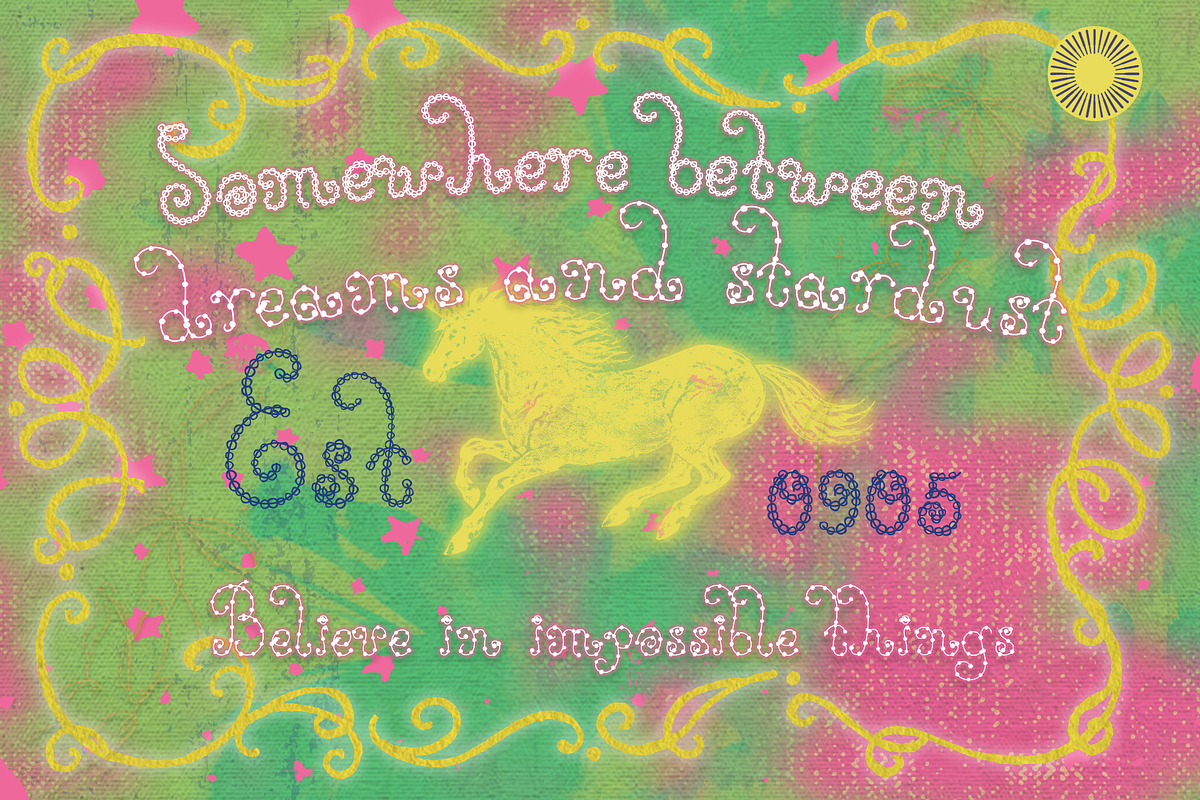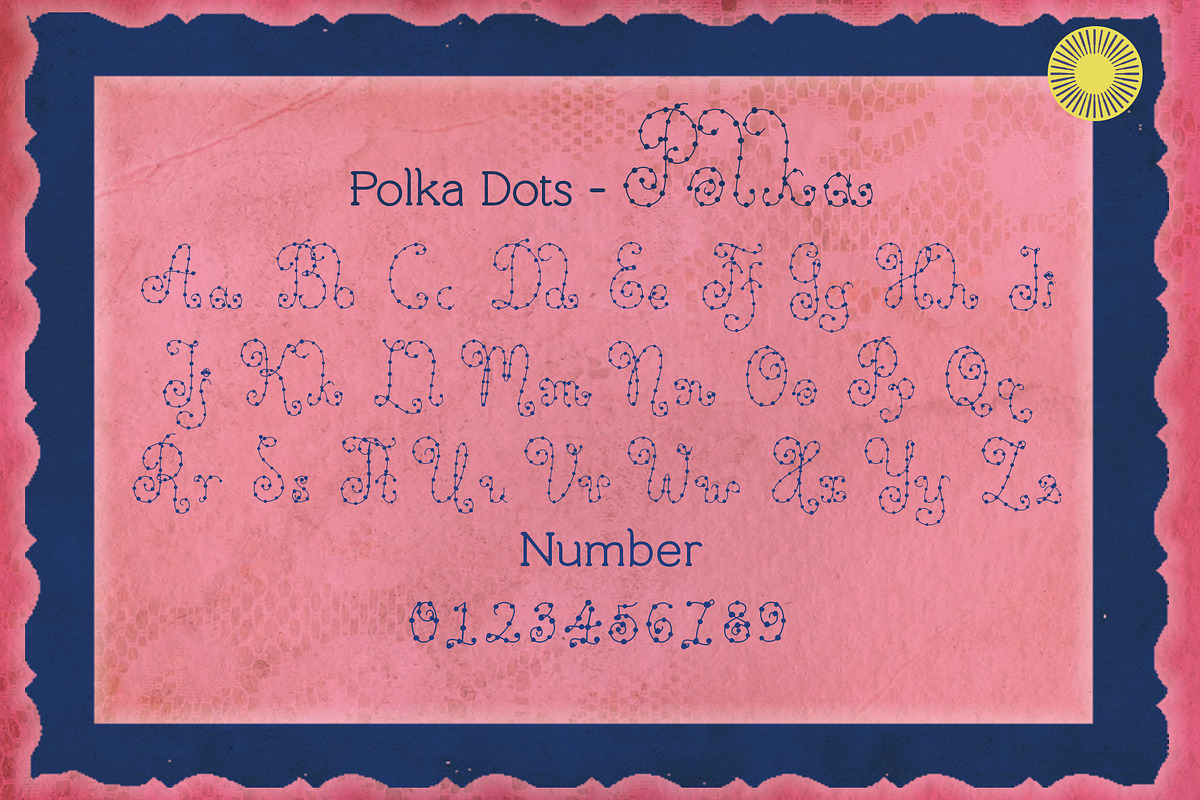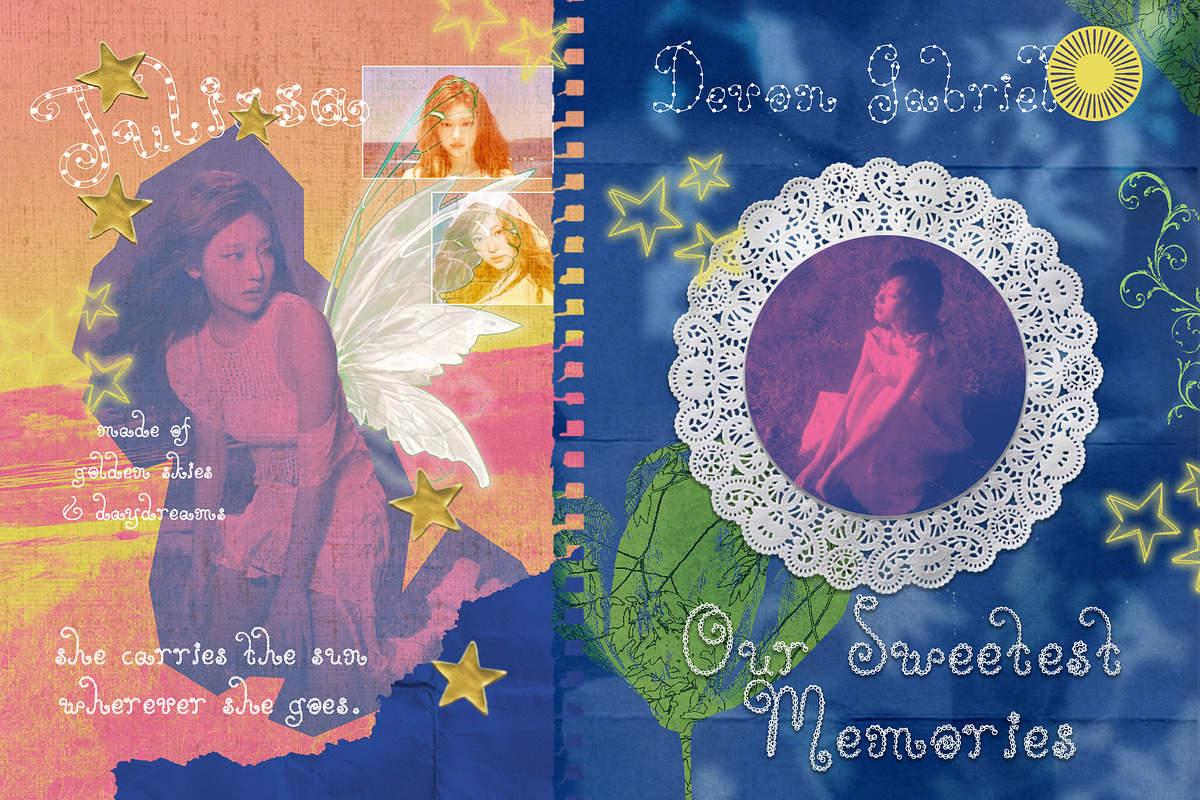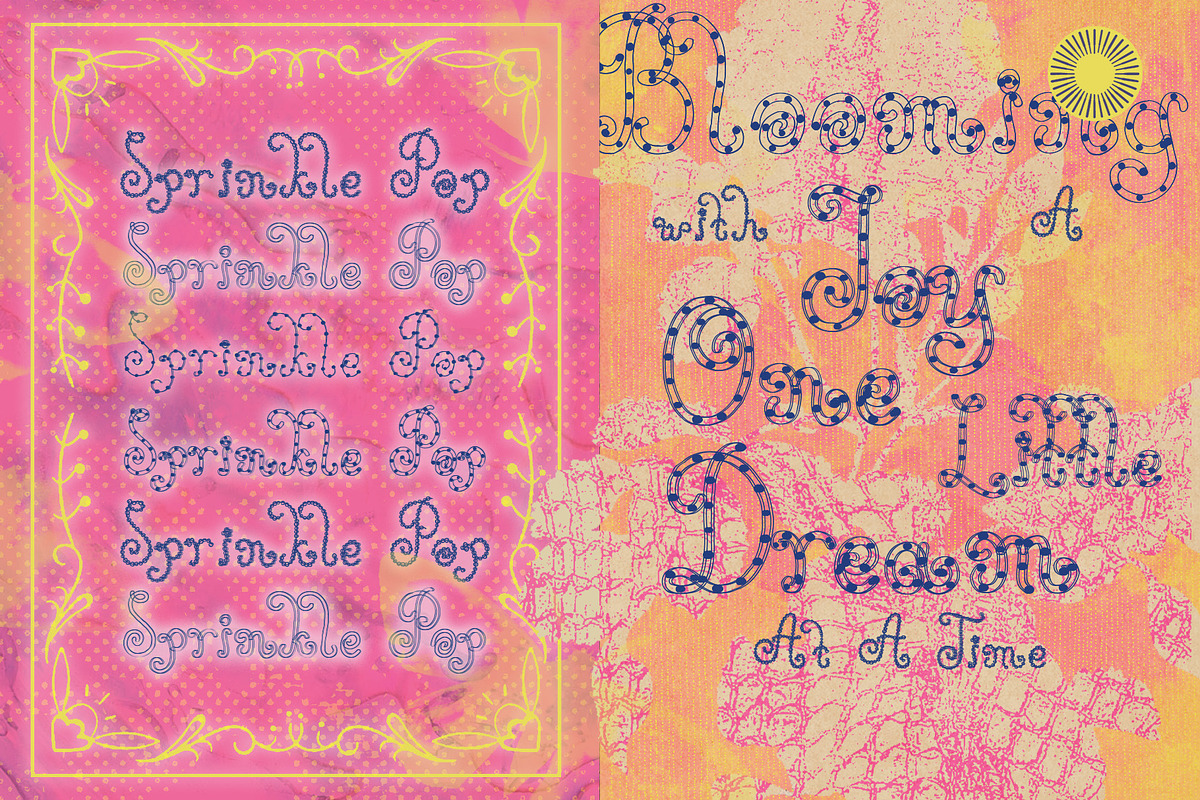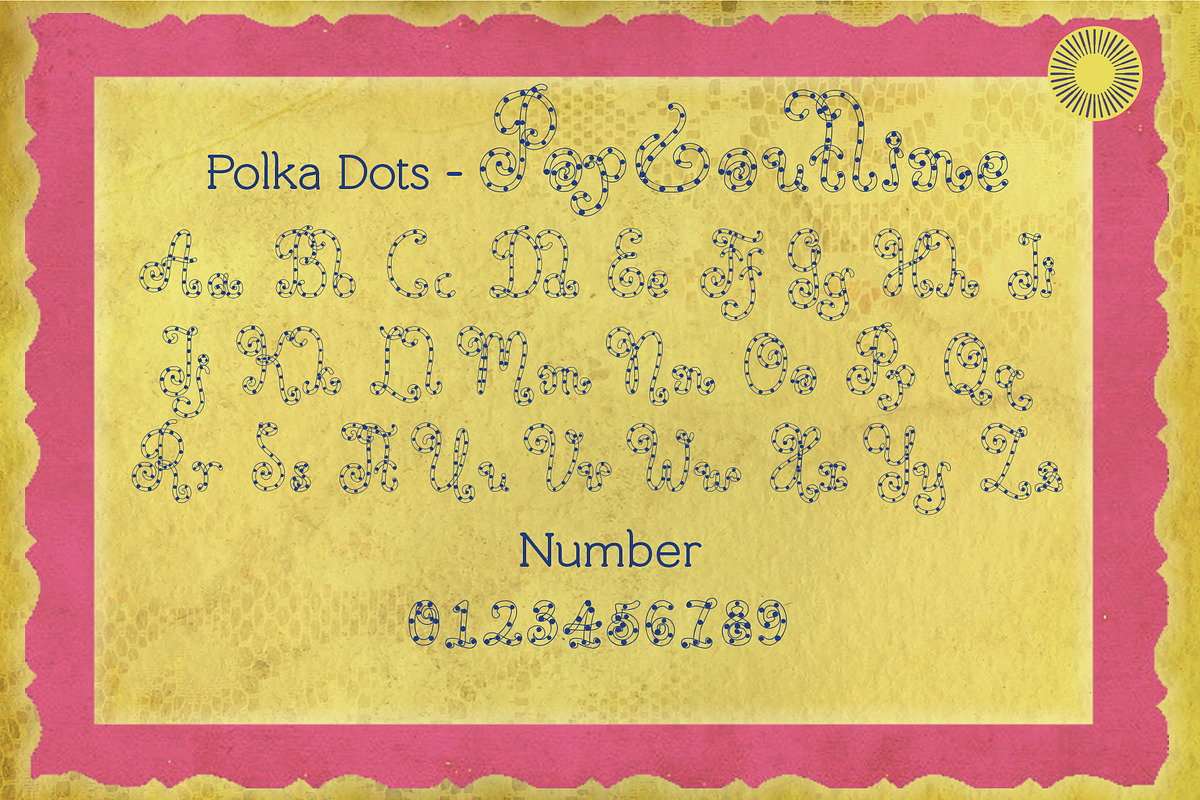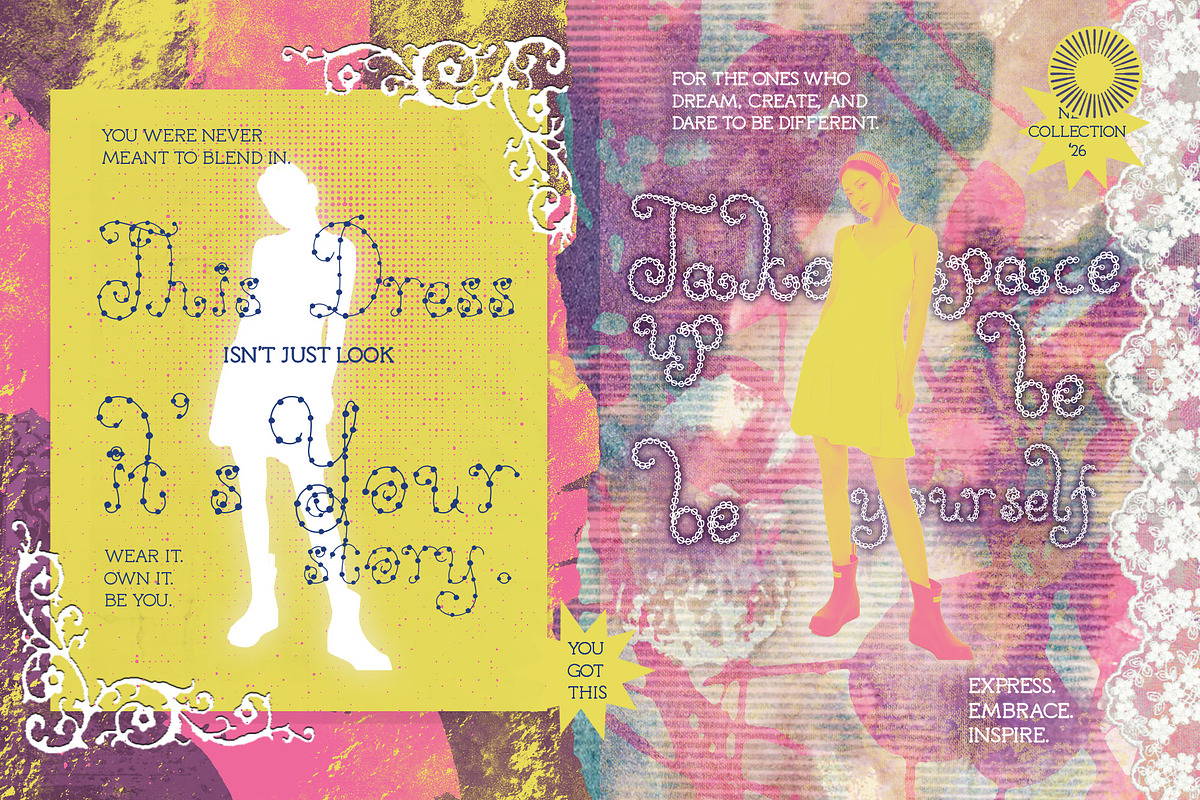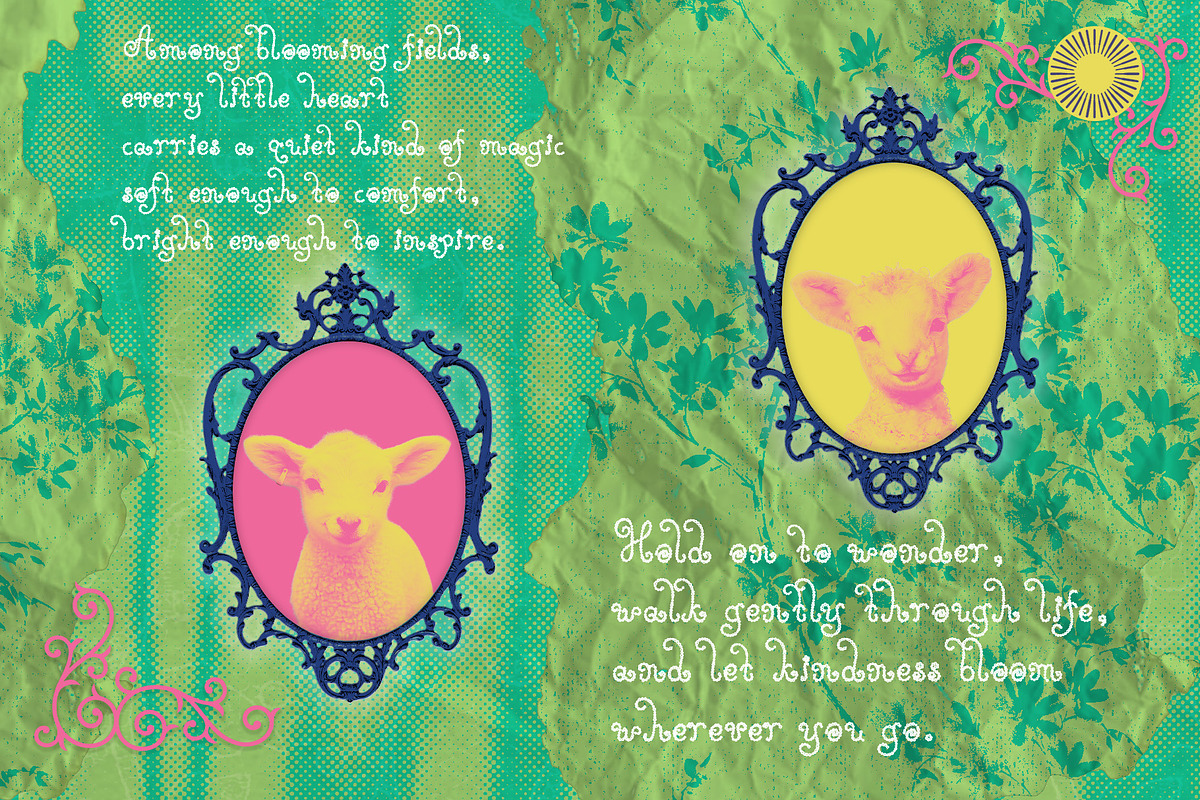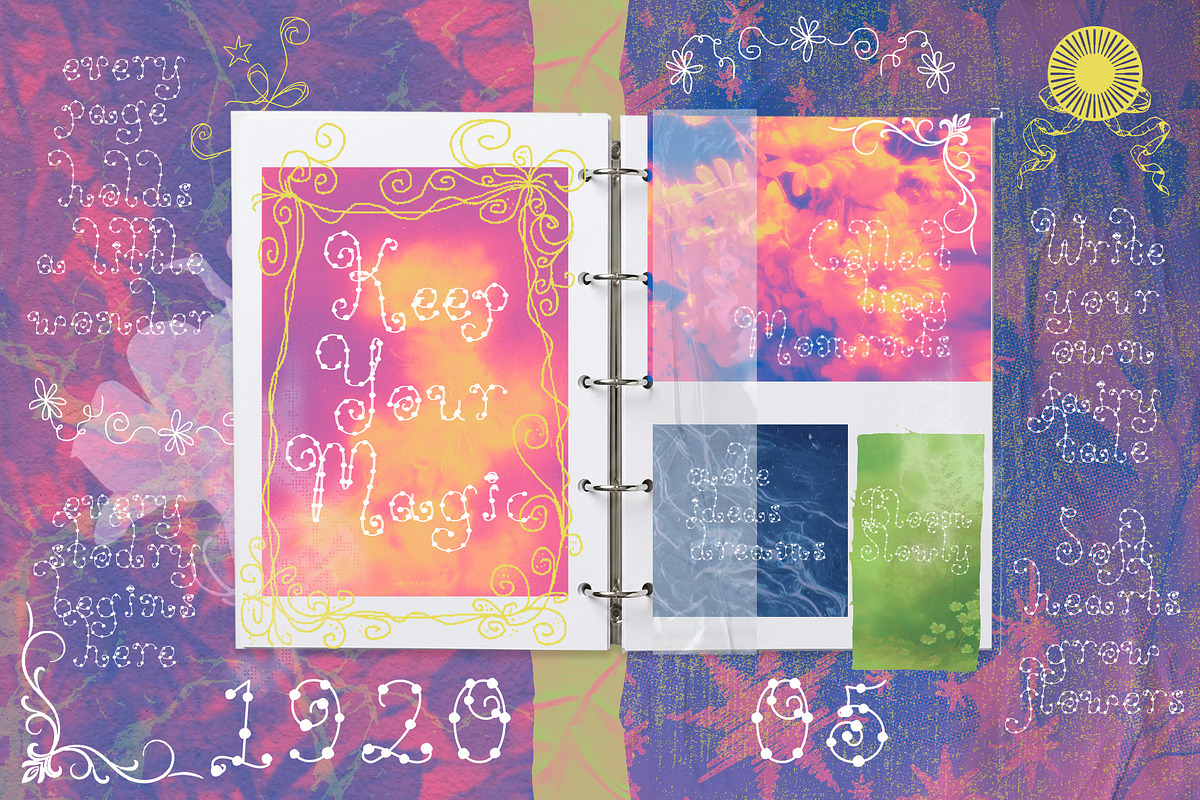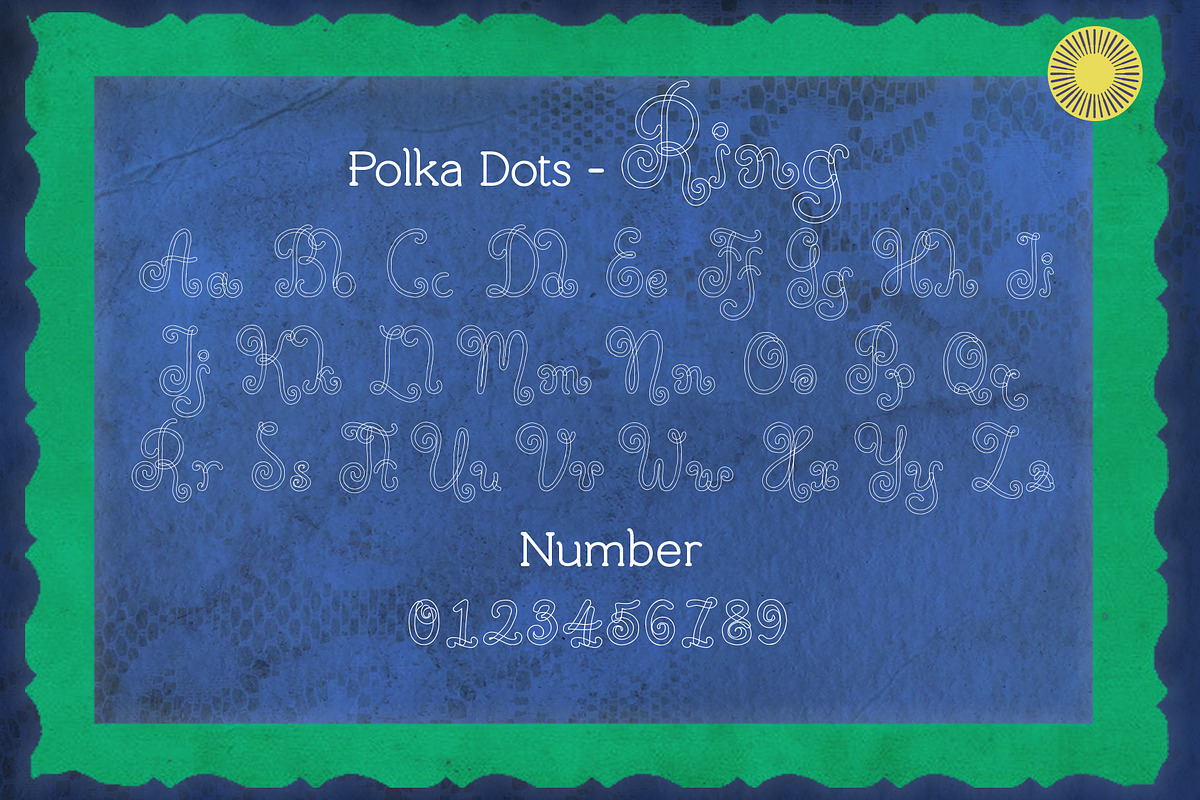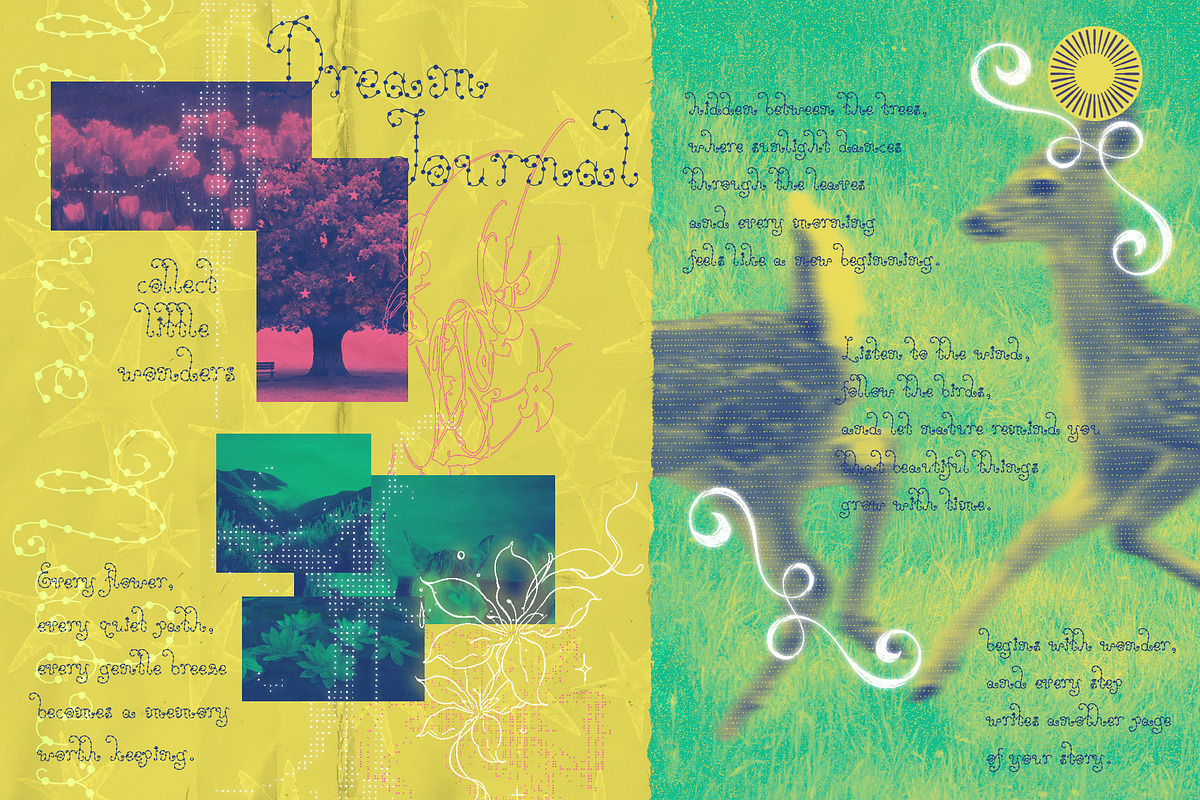
Polka Dots - Whimsical Font Bundle
Polka Dots – Playful & Whimsical Font Bundle
Polka Dots is a playful and whimsical display font bundle made for designers who love expressive typography, cheerful details, and a little bit of fun.
Inspired by colorful sprinkles, playful polka dots, handmade details, and storybook charm, Polka Dots comes with 4 different styles that can be mixed, matched, and layered to create your own unique typographic combinations.
Instead of giving you just one look, Polka Dots lets you experiment with different styles depending on the mood of your project from sweet and charming to quirky, decorative, and wonderfully unexpected.
Use the styles individually or combine them together to create playful headlines, logos, invitations, packaging, posters, stickers, social media graphics, and colorful branding.
Best For :
Branding
Packaging
Invitations
Birthday Designs
Children's Products
Stickers
Posters
Greeting Cards
Editorial Design
Café & Bakery Branding
Boutique Branding
Party Invitations
Creative Advertising